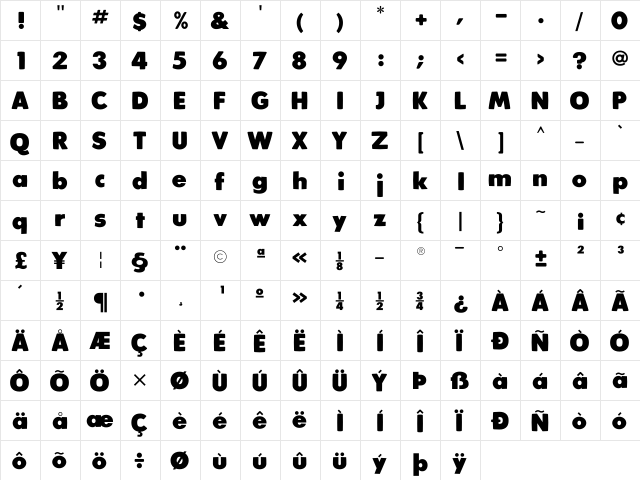
Plumpfull Black
Design Context for Plumpfull Typeface
Plumpfull offers clean, dependable letterforms without strong stylistic allegiance, making it a practical choice for designers who need flexibility.